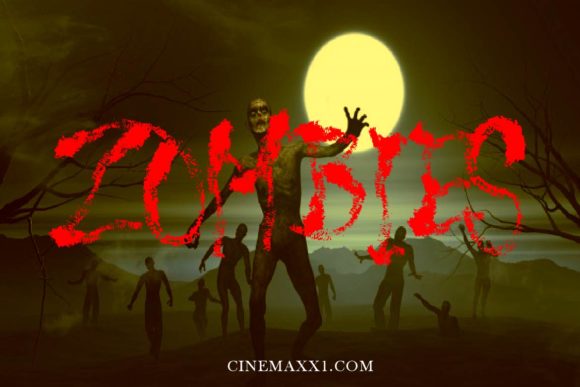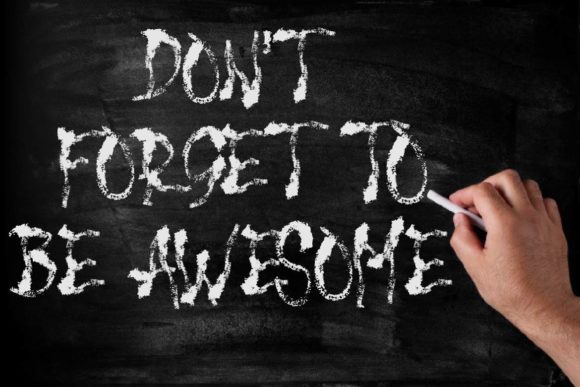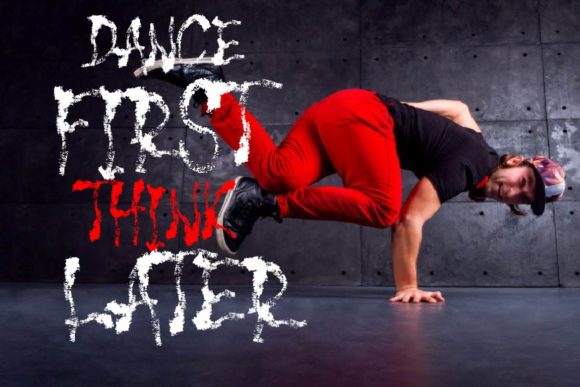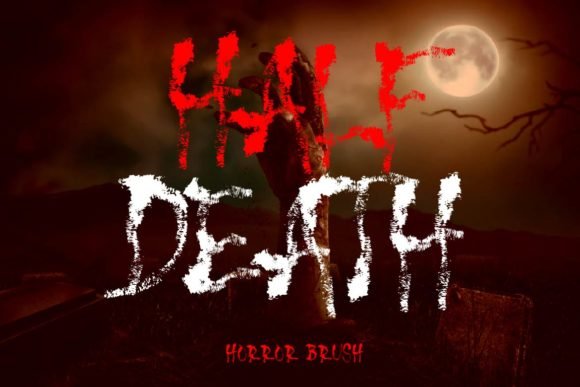
Introduction to Half Death Font
Half Death is a raw and rough display font that’s great for any Horror or Halloween project.
It will turn any message into an eye-catcher .
Key Features of Half Death Font